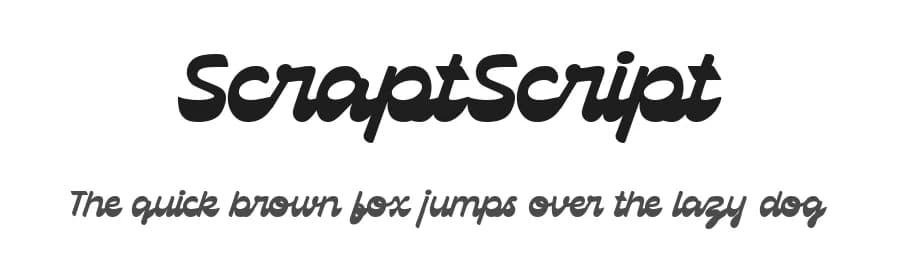
About ScraptScript Font
ScraptScript Font is a script font that shines as a display or heading face. Pair it with a clean sans-serif or serif font for body text β the contrast creates a clear hierarchy while the two styles stay balanced and easy to read.
ScraptScript Font